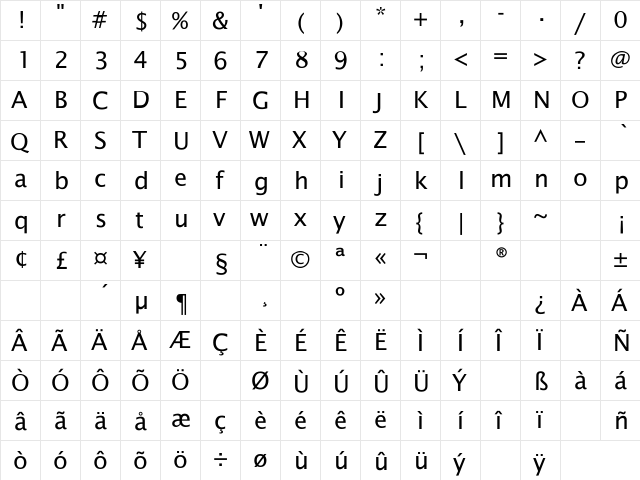
Saintgermain Sans Regular
Design Context for Saintgermain Sans Typeface
Saintgermain Sans takes a measured approach to typography — its balanced proportions and neutral character make it a reliable workhorse for both digital and print work.